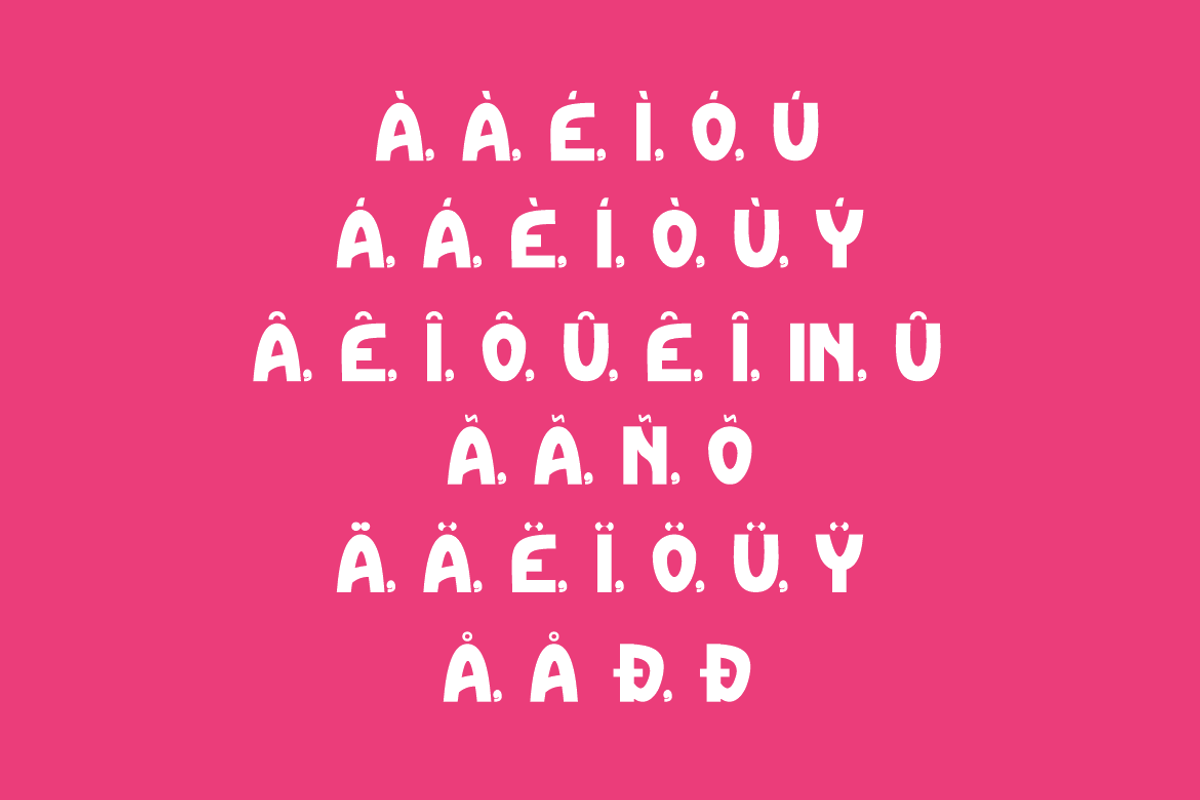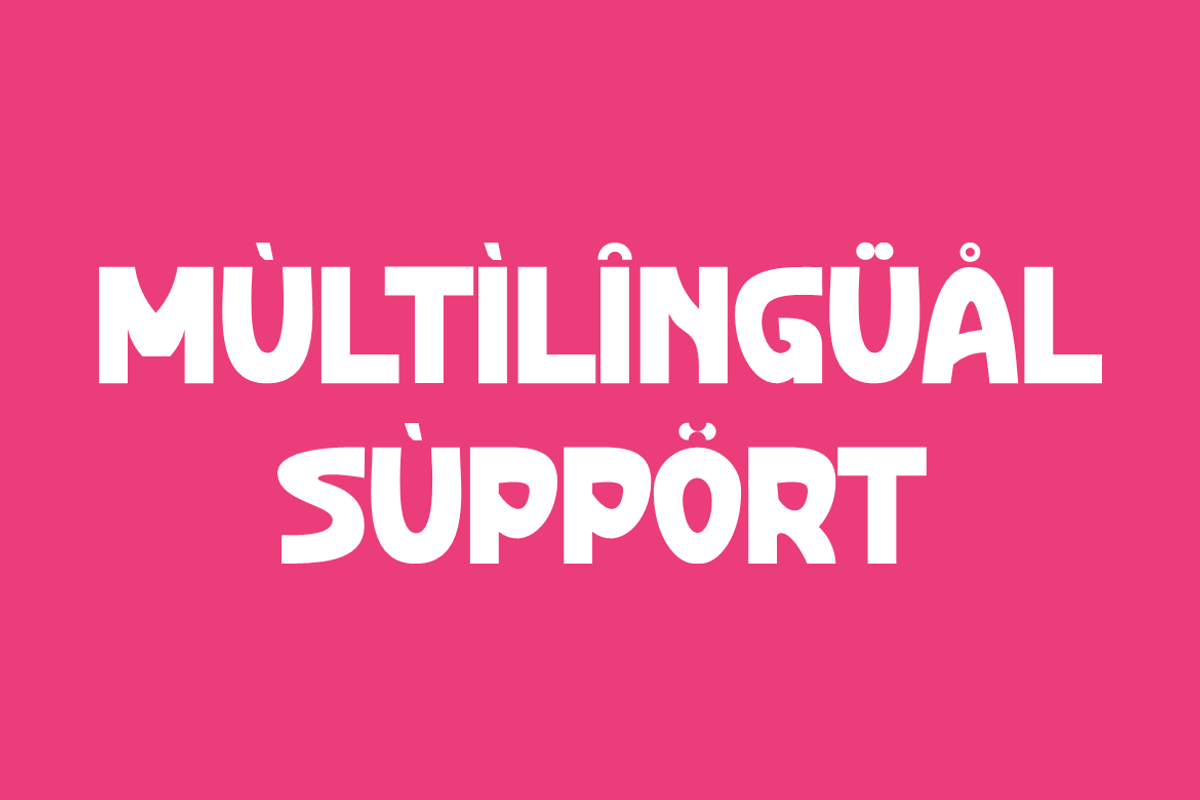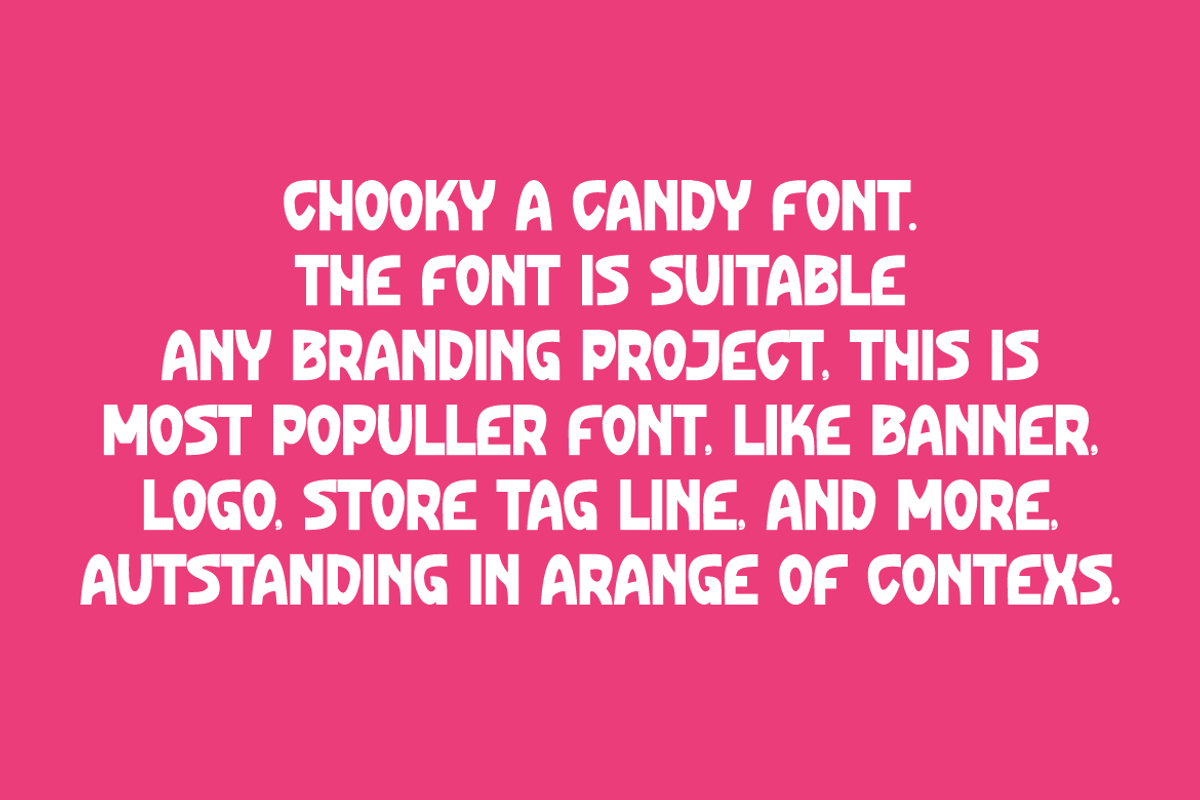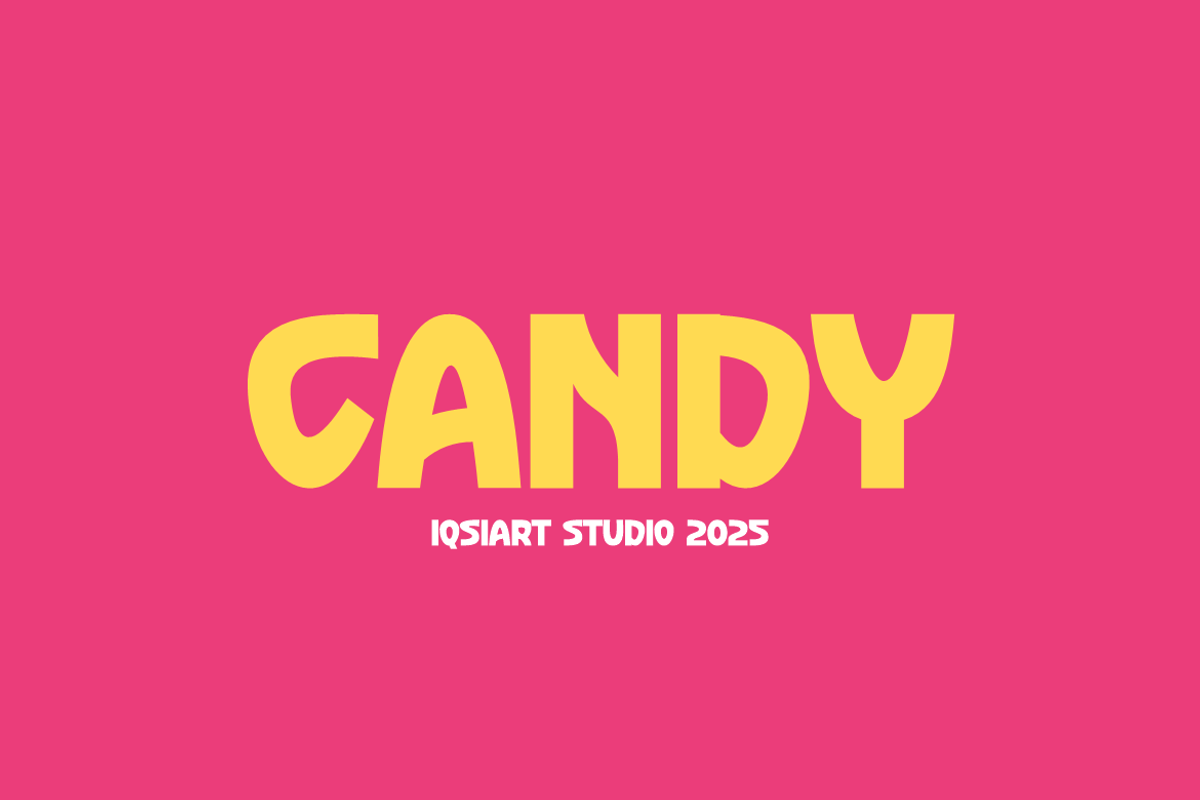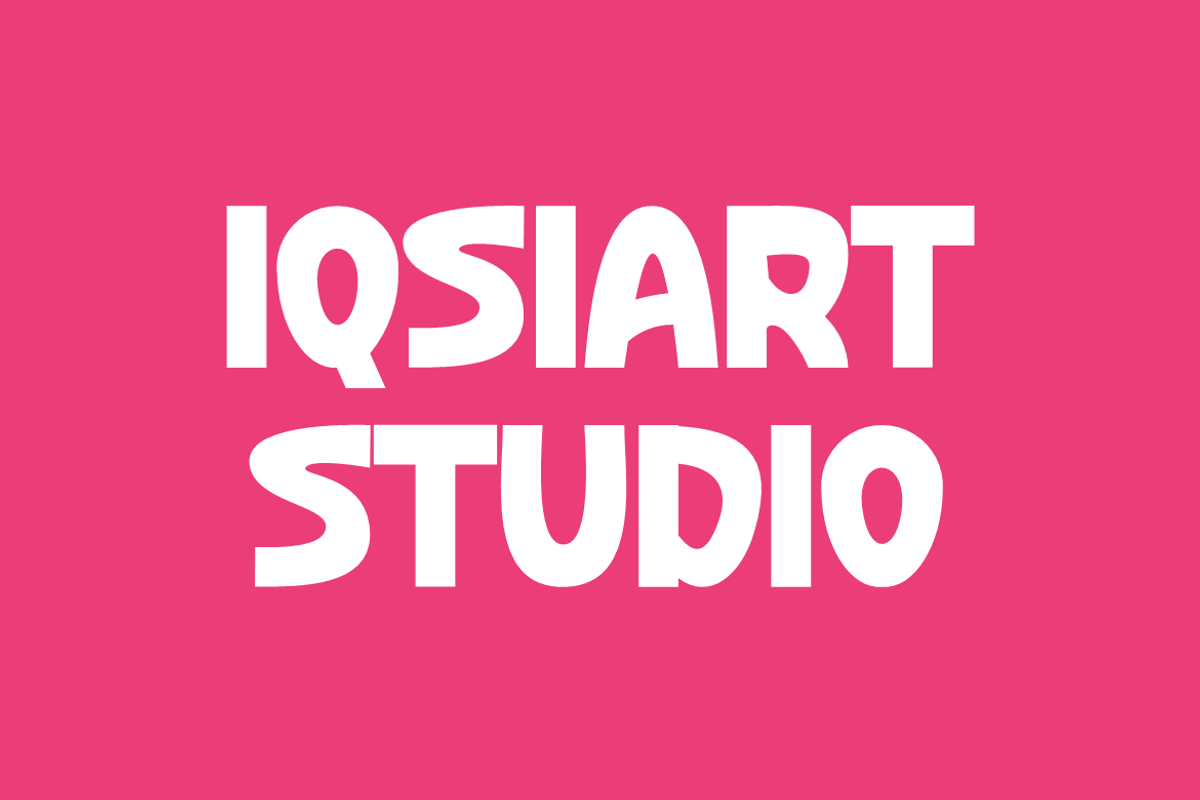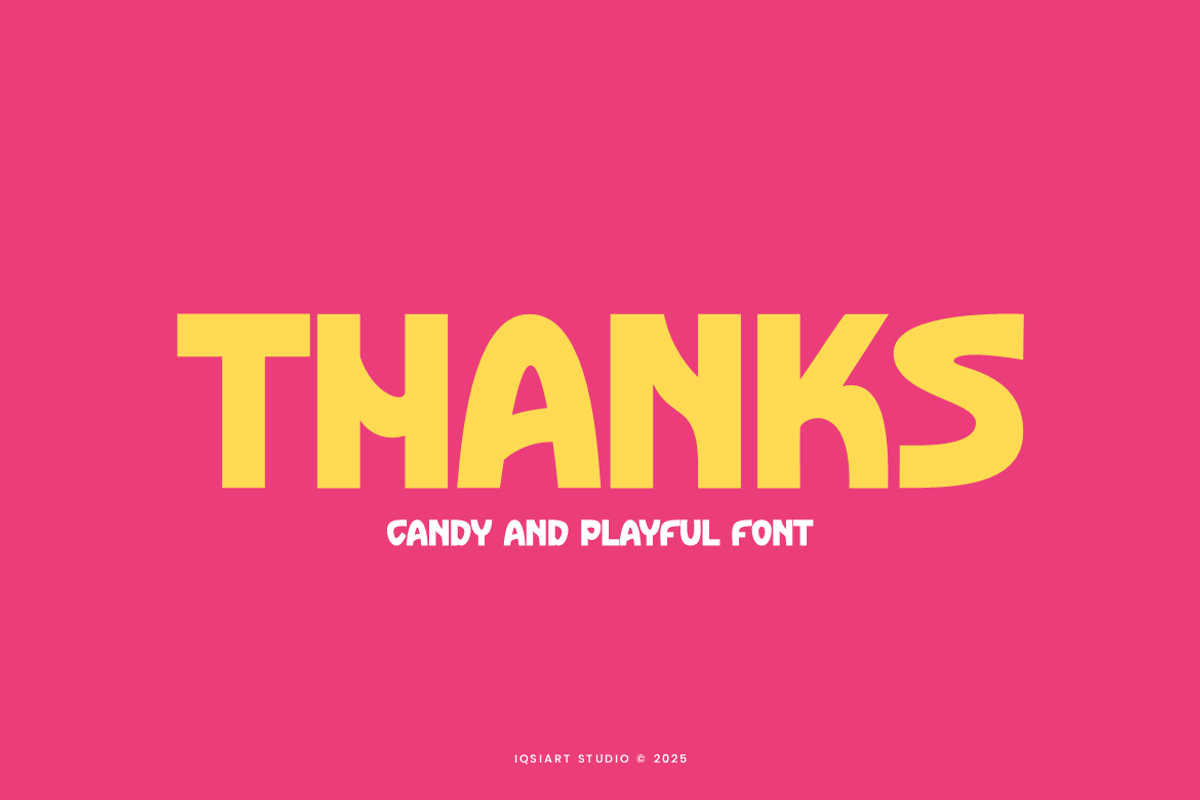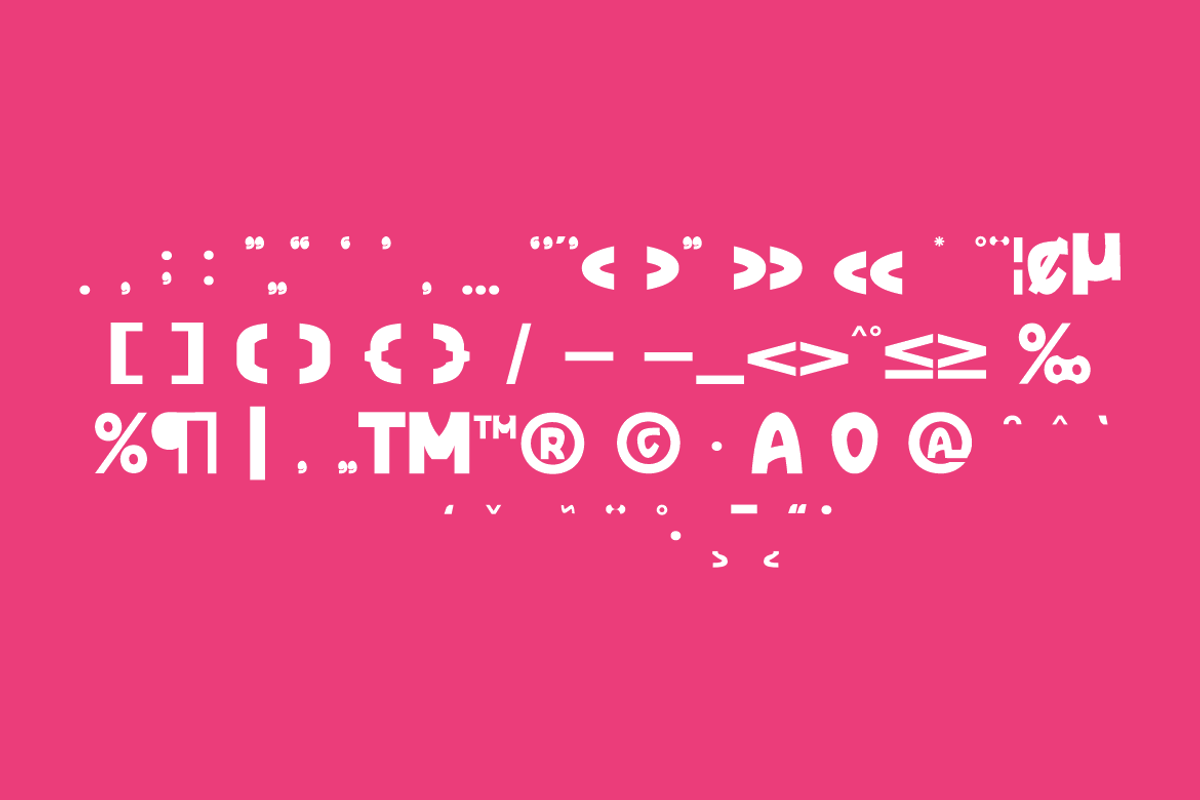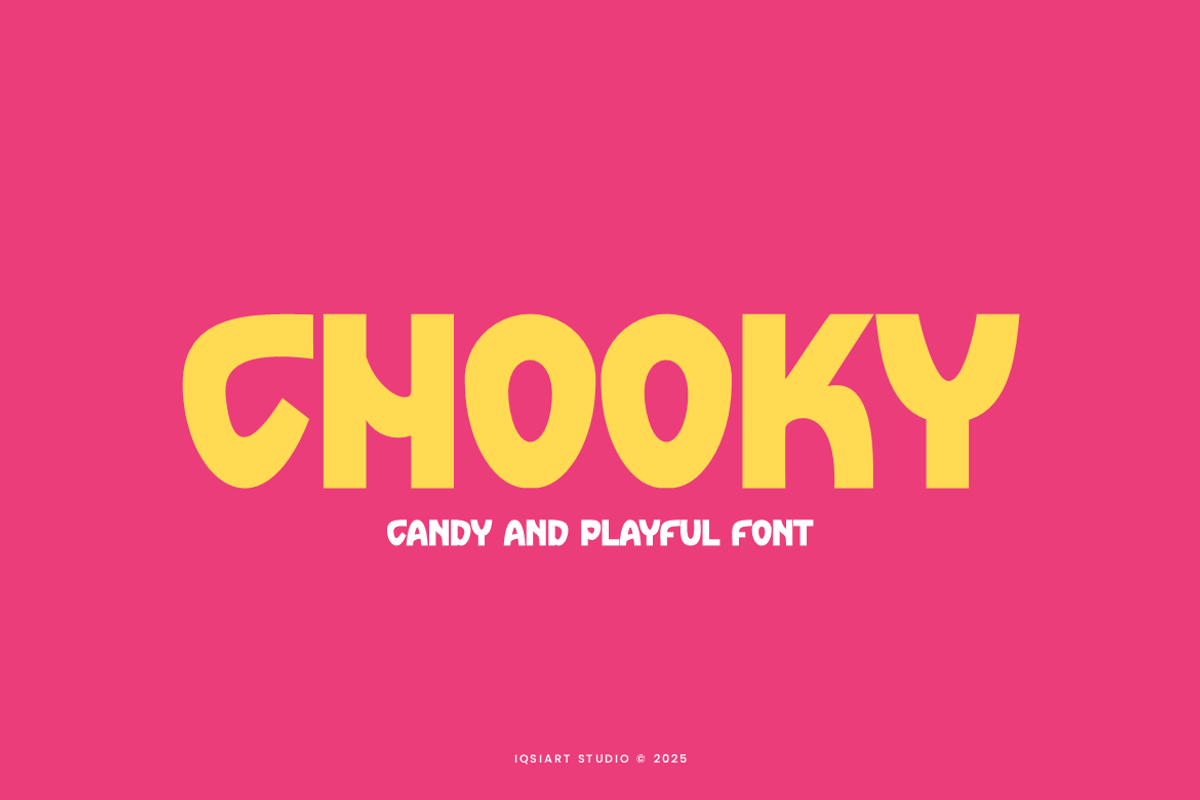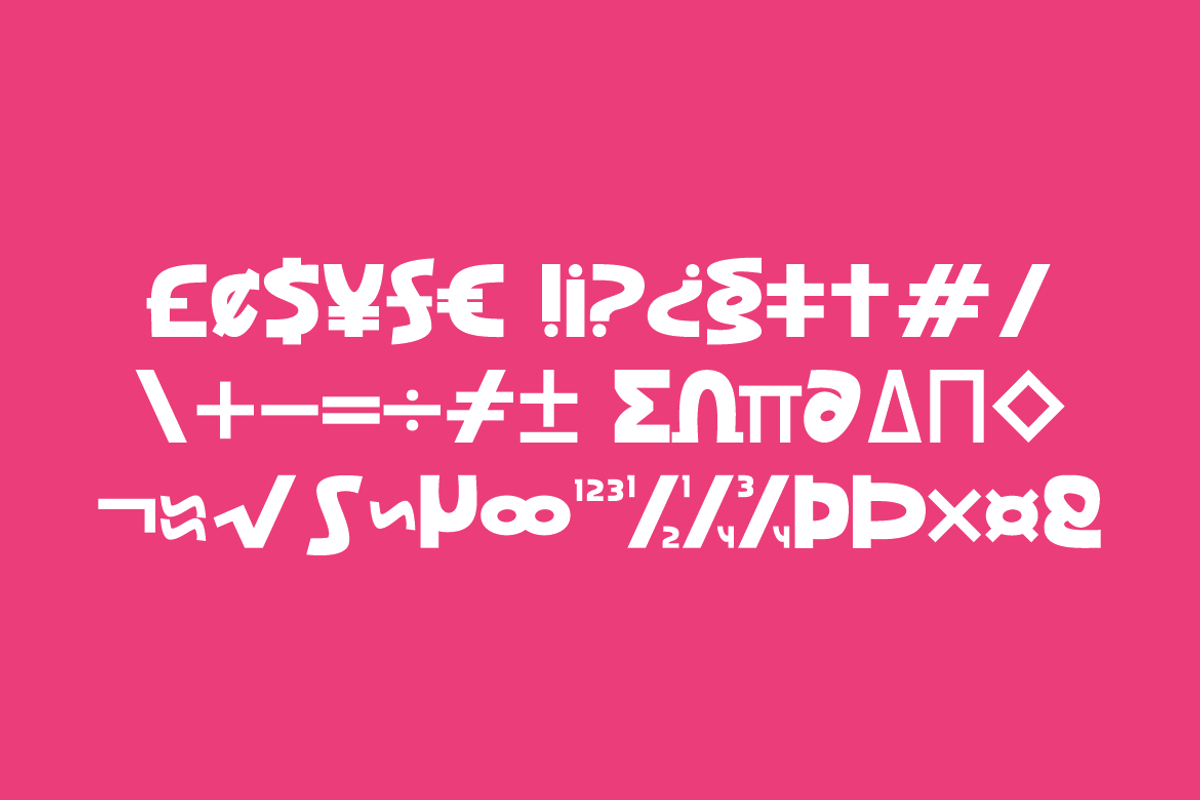
Chooky - Candy & Cute Font
Chooky Font is a best and authentic display font. This font can be used for your various needs. We provide various themes and font styles. visit our profile to get a wide variety of themes and different font styles you need.